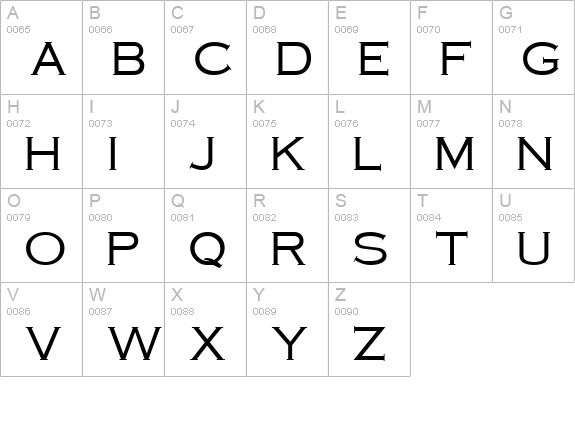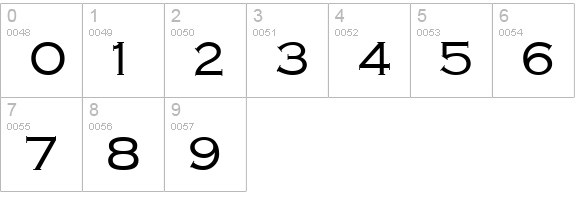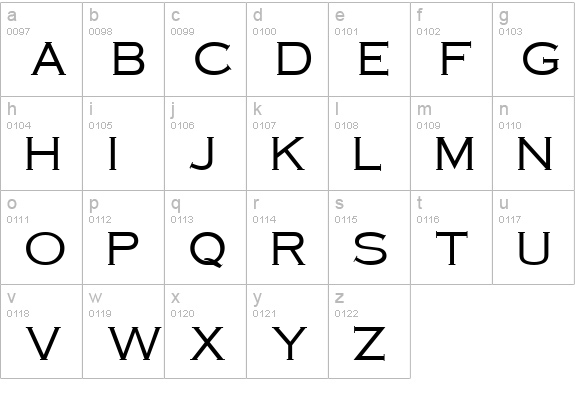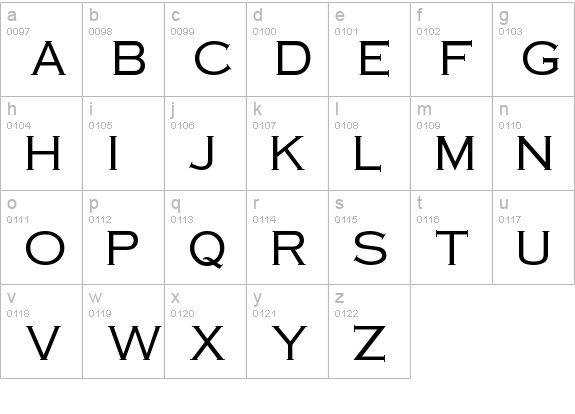
Copperplate Regular is the standard, neutral variant in the Copperplate typeface family \xE2\x80\x94 well suited to general body text, paragraphs, and standard typographic work.
Copperplate Regular font is a timeless classic that exudes elegance and sophistication. Its clean lines and sharp angles make it perfect for formal invitations, business documents, and elegant branding. The font's versatility allows it to be used in a variety of design projects, from traditional to modern. What sets Copperplate Regular font apart is its ability to convey a sense of professionalism and refinement while maintaining a sense of approachability. Its balanced letterforms and distinct serifs give it a unique charm that is both eye-catching and easy to read. And the best part? Copperplate Regular font is available for free download at FontsMarket.com. So whether you're a designer looking to add a touch of sophistication to your projects or a business owner wanting to elevate your branding, Copperplate Regular font is the perfect choice for achieving that polished look. Download it today and elevate your design game with this timeless typeface.